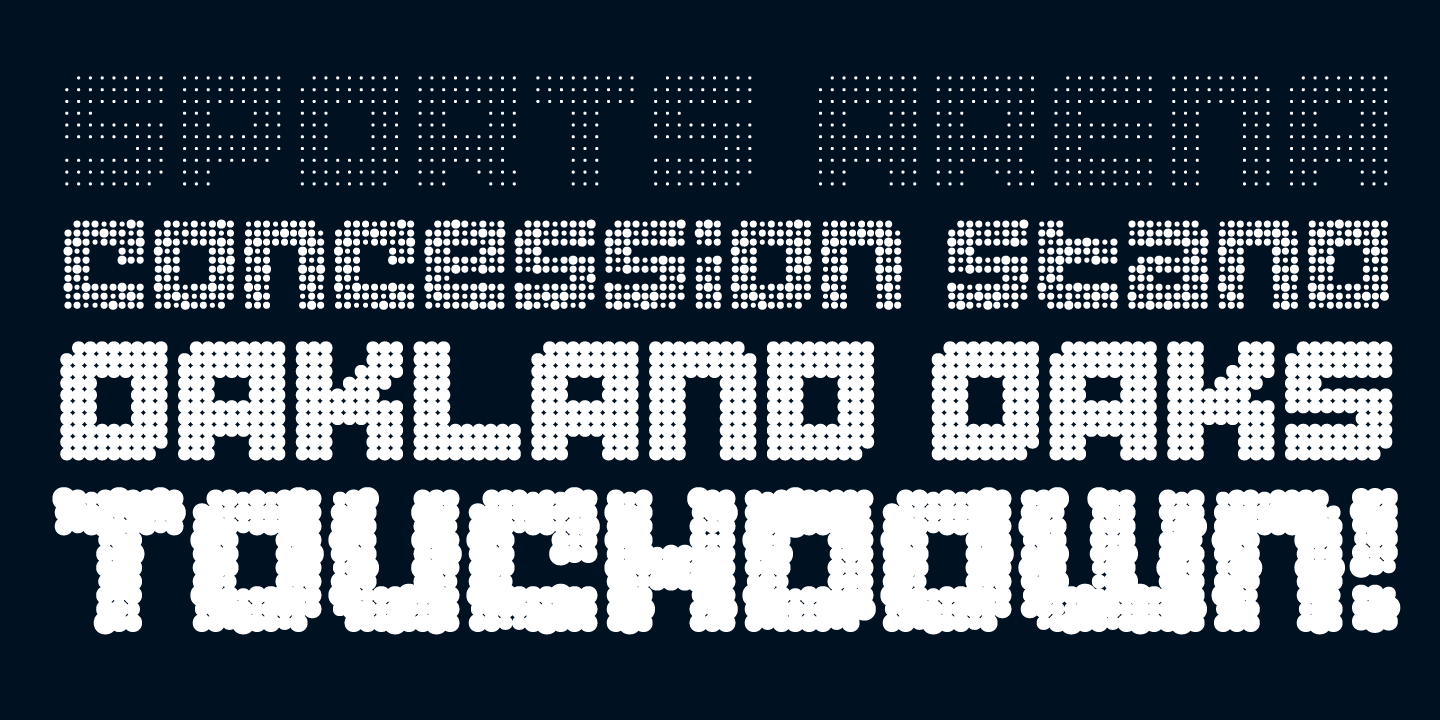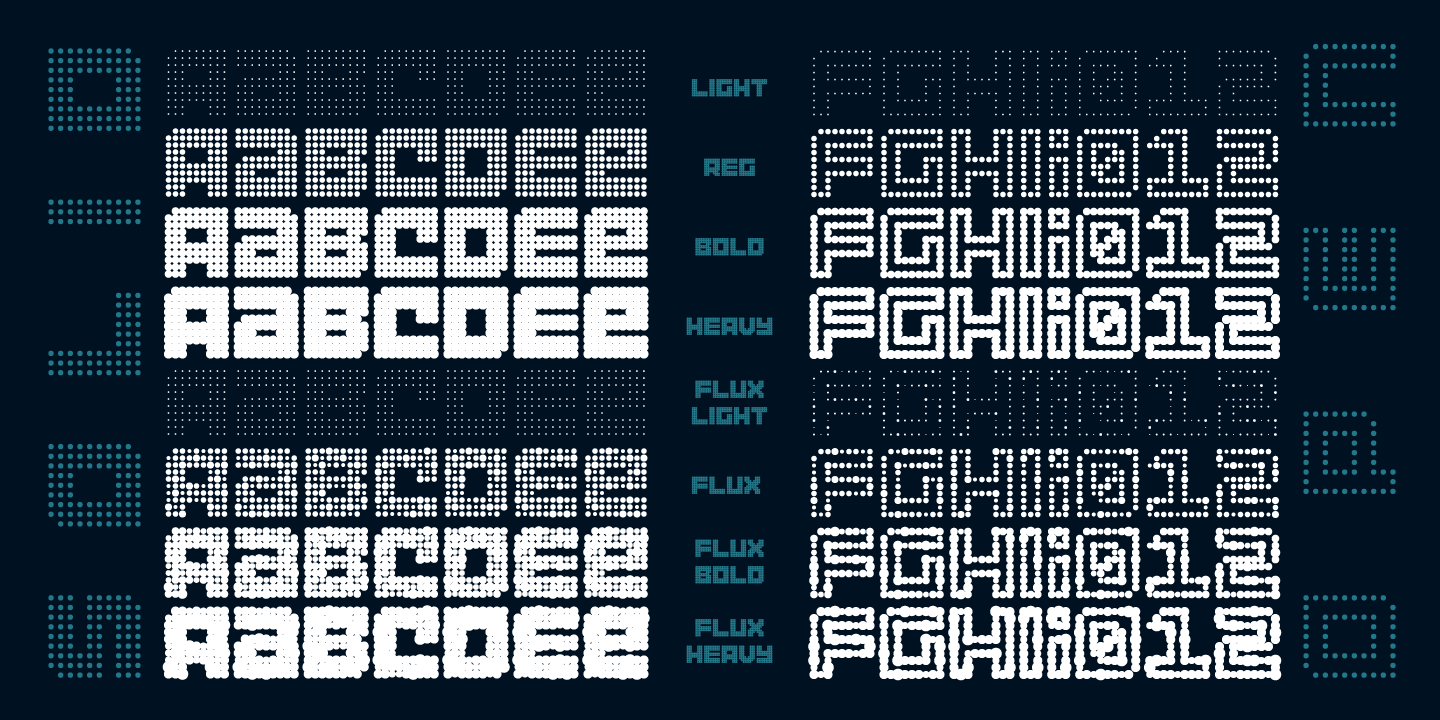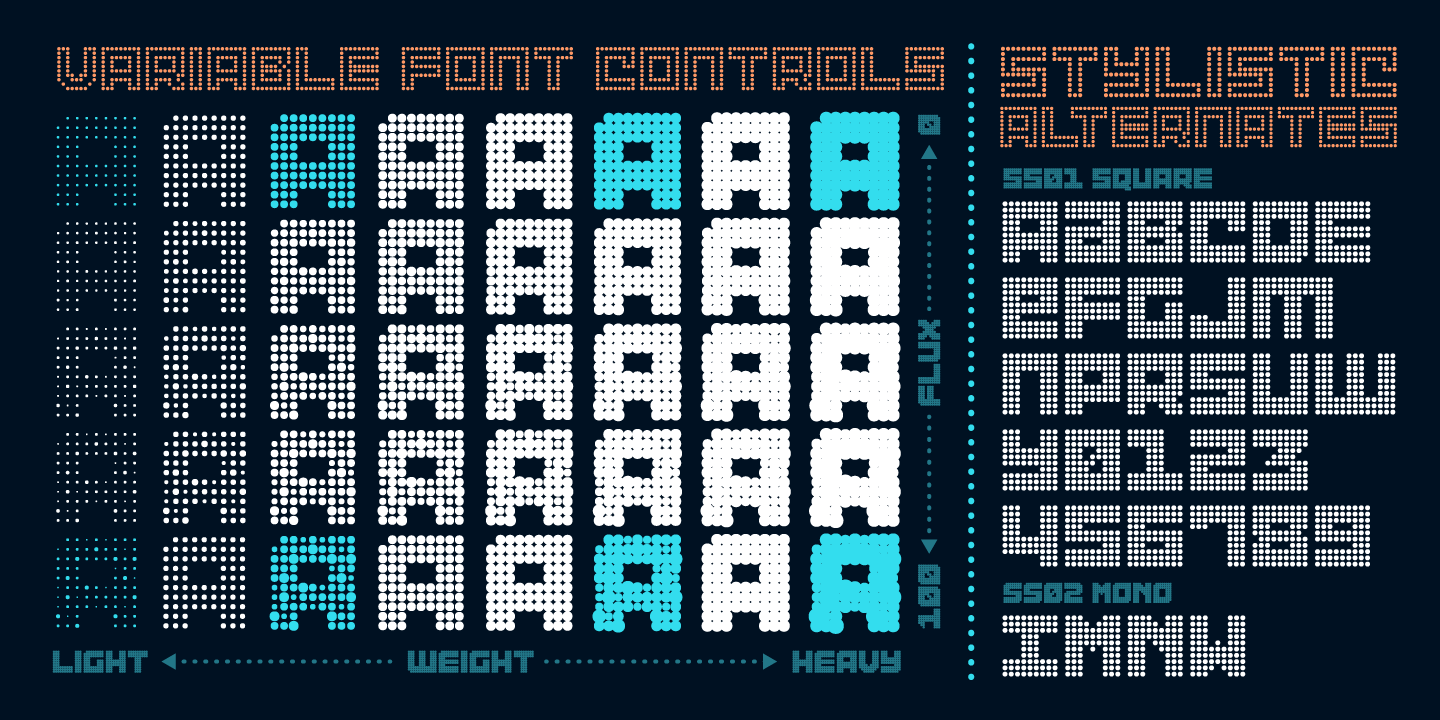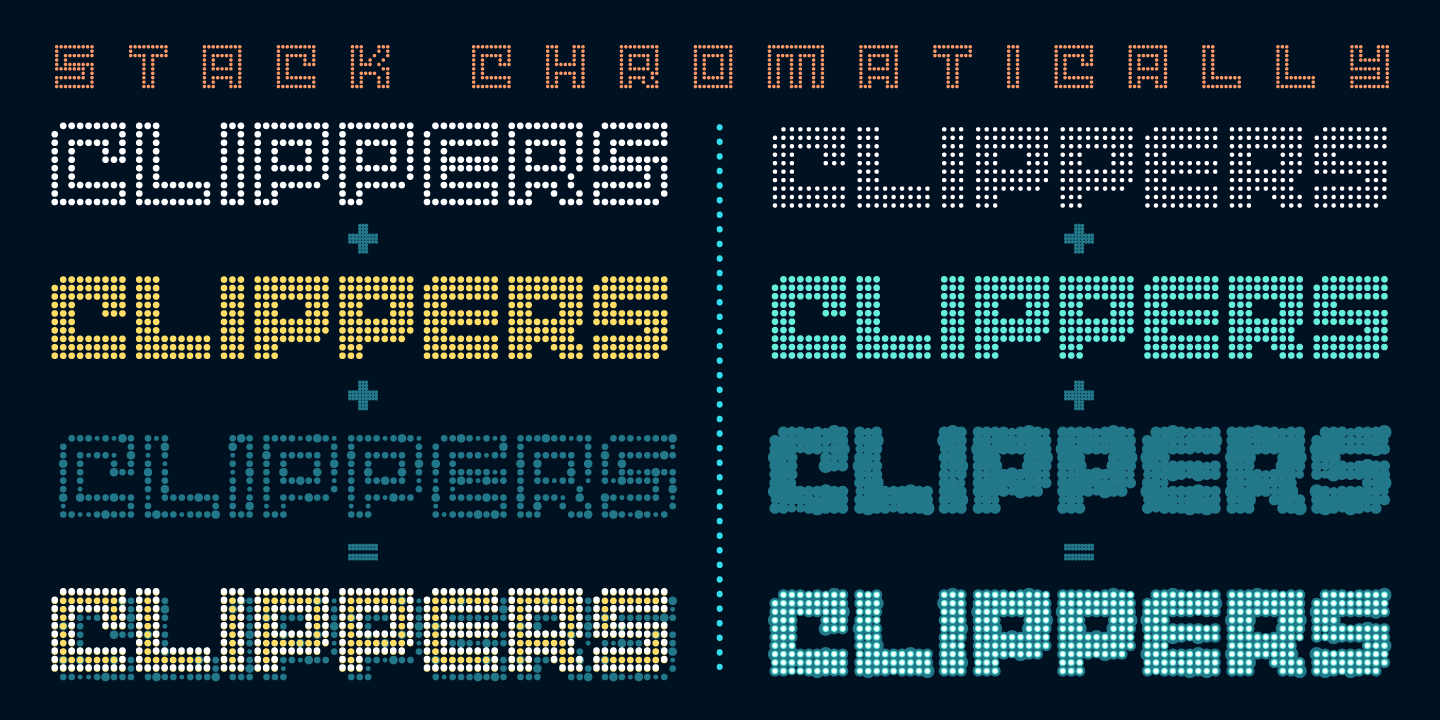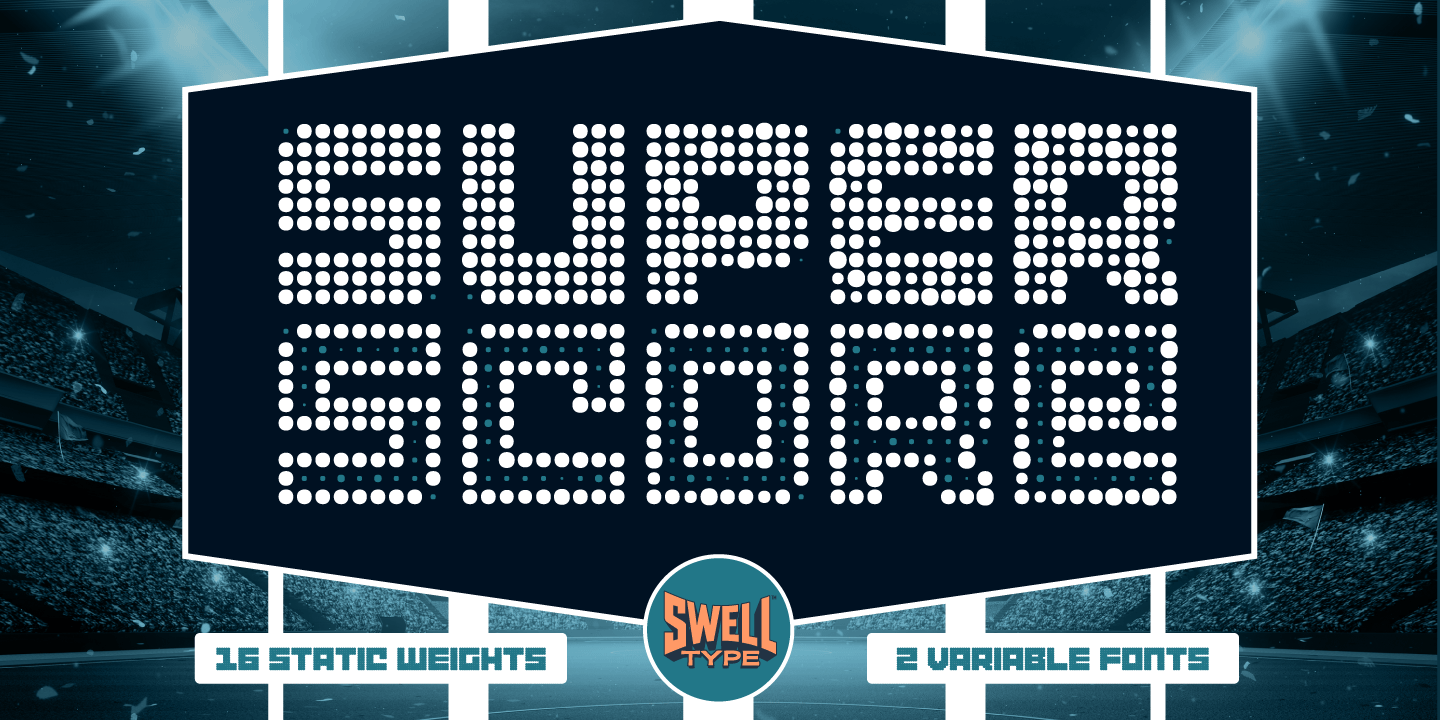
Superscore
About Superscore
Inspired by 1970s & '80s stadium displays, Superscore is a display font alight with vintage vibes and modern features. Each of the seven widths includes 16 static weights and two Variable Fonts. Each weight features two sets of Stylistic…